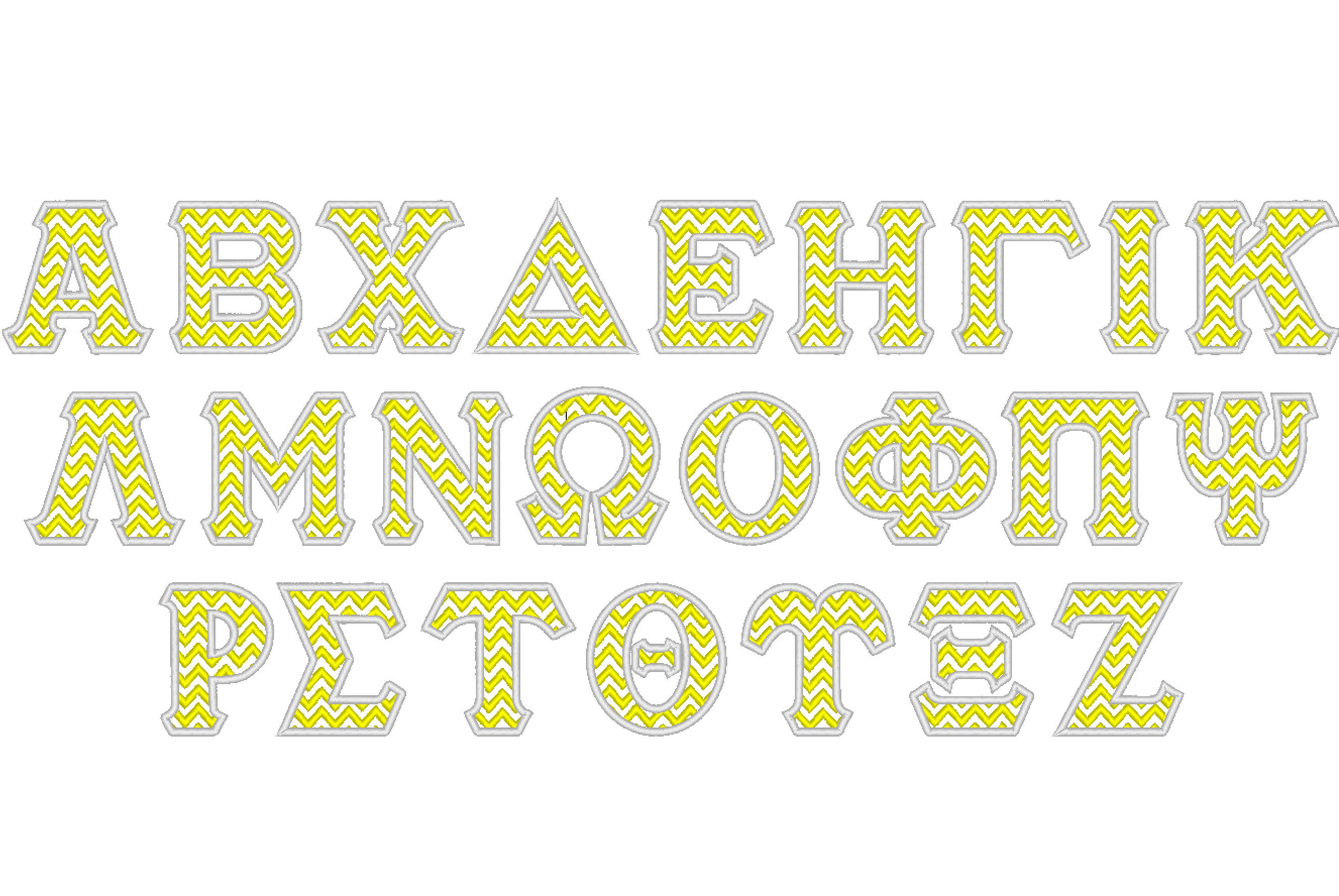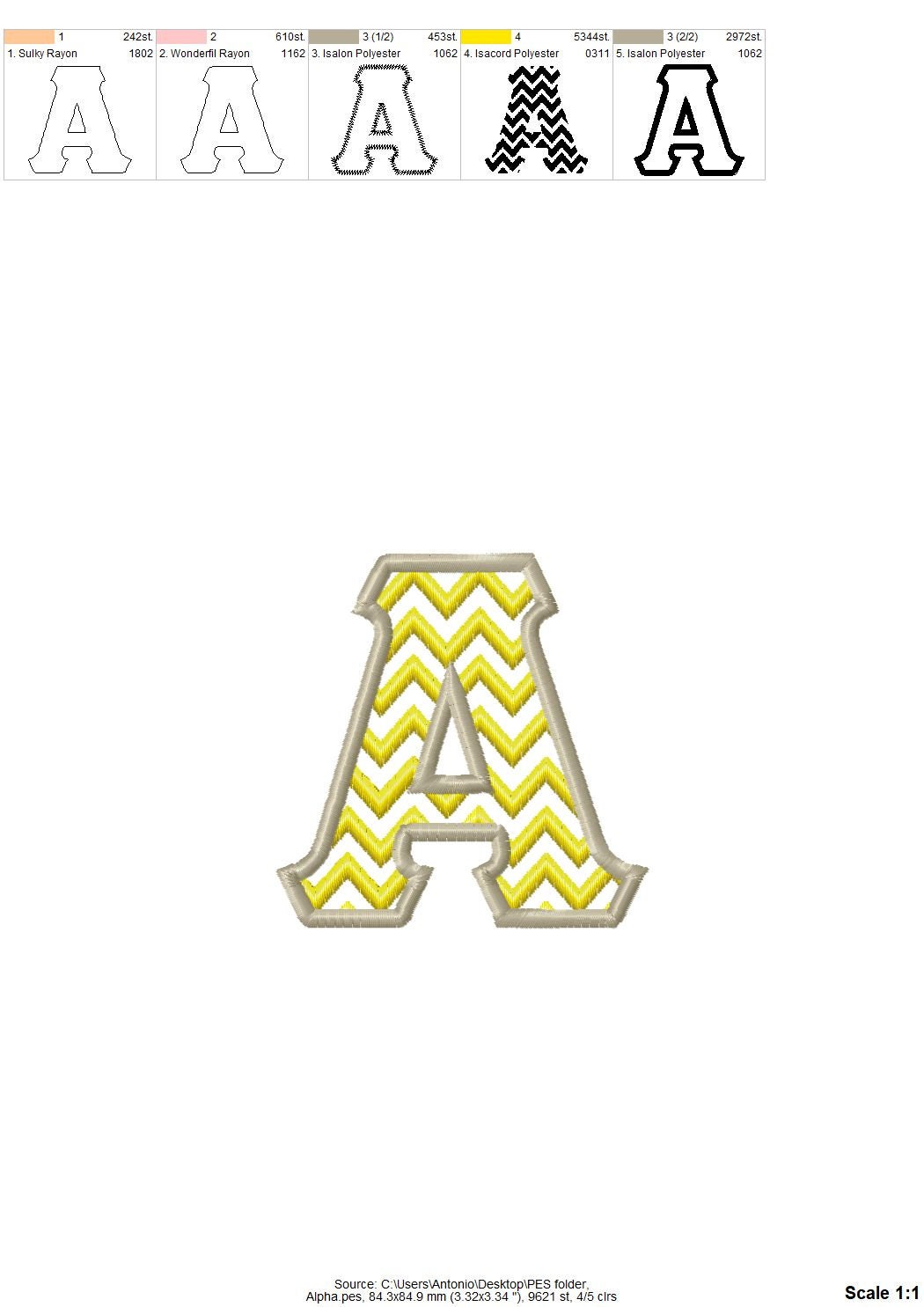
Chevron applique Whole Greek font alphabet ABC letters 1 step applique machine embroidery designs font sororities fraternities applique Font
Chevron applique Font. Chevron lines are part of embroidery.